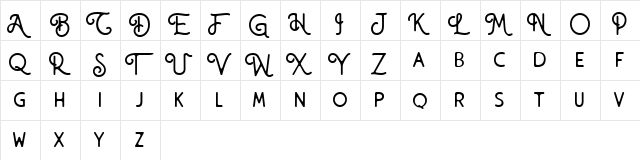
Atorge Free Regular
| Foundry | Maulana Creative |
Design Context for Atorge Free Typeface
Atorge Free is a composed and adaptable typeface that performs quietly and consistently across a wide range of design contexts.